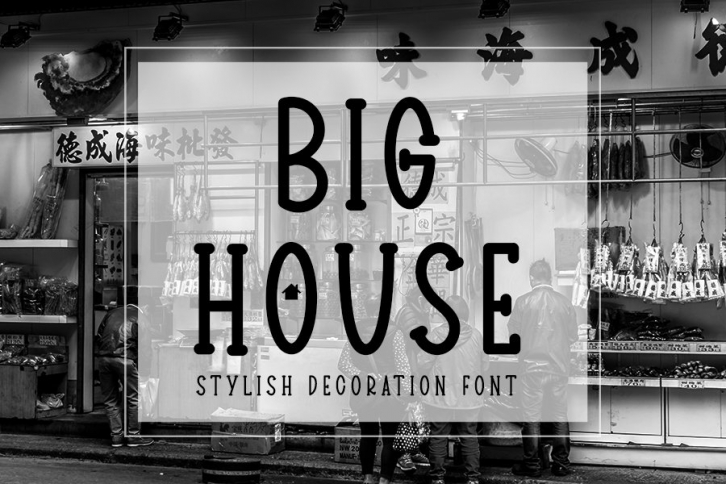
BIG HOUSE is a great font that was designed by KINSTUDIO. Imagine the amount of combinations you can create using this font! The archive is 1.84 MB and it was released on October 19, 2020. BIG HOUSE looks beautiful on wedding invitations, greeting cards, logos, posters, labels, t-shirt designs, logos, business cards and is perfect for use in ink or watercolor works, fashion, magazines, packaging and food menus, children's books and more!